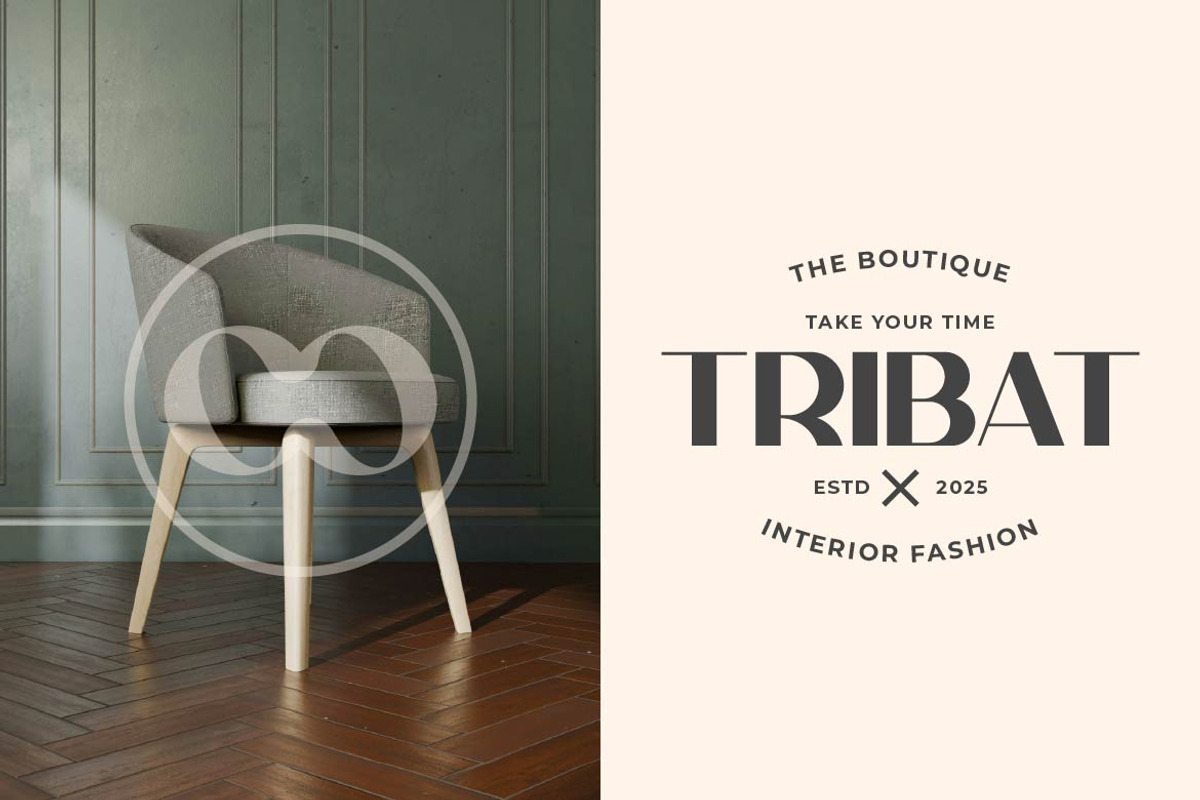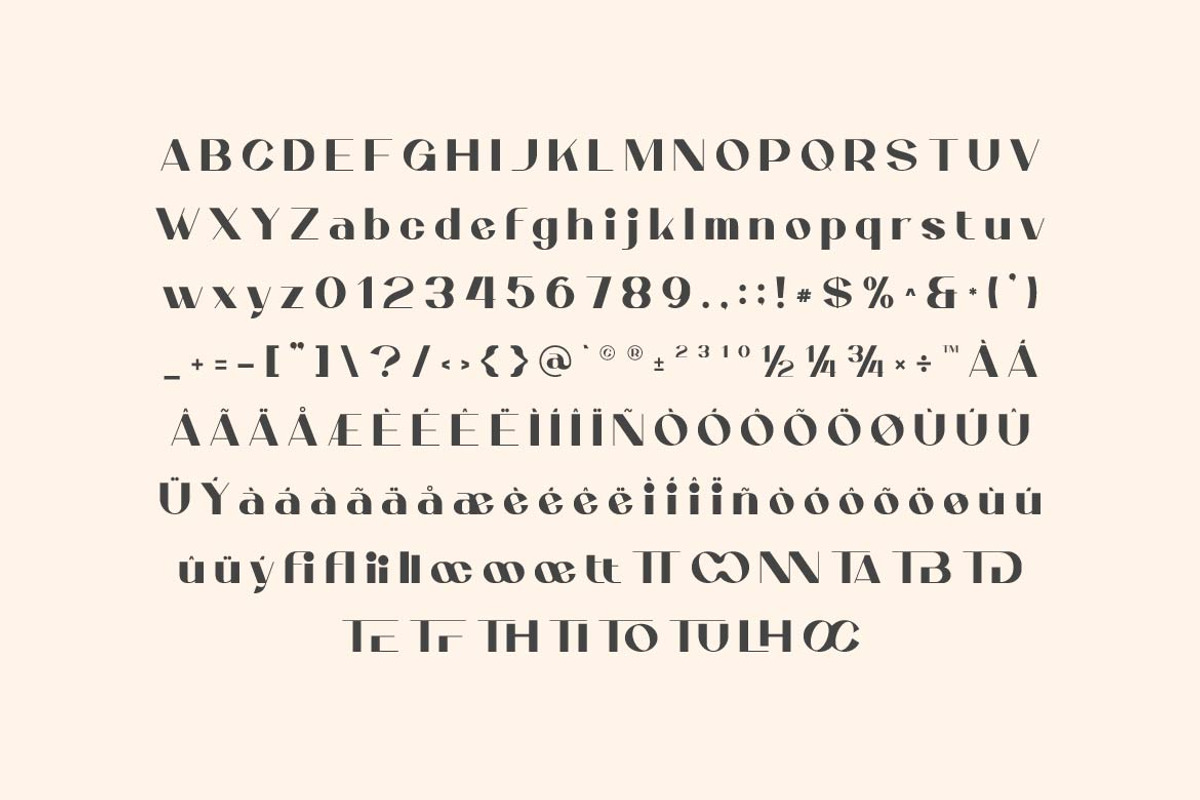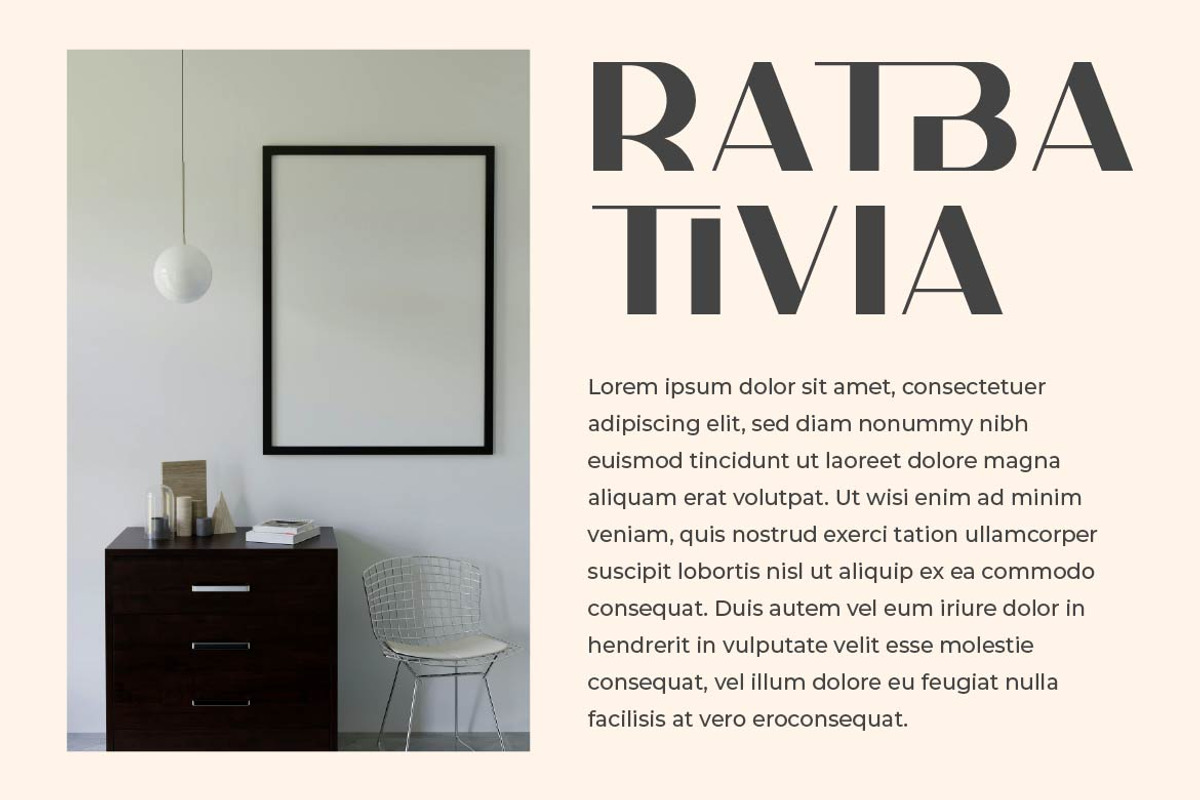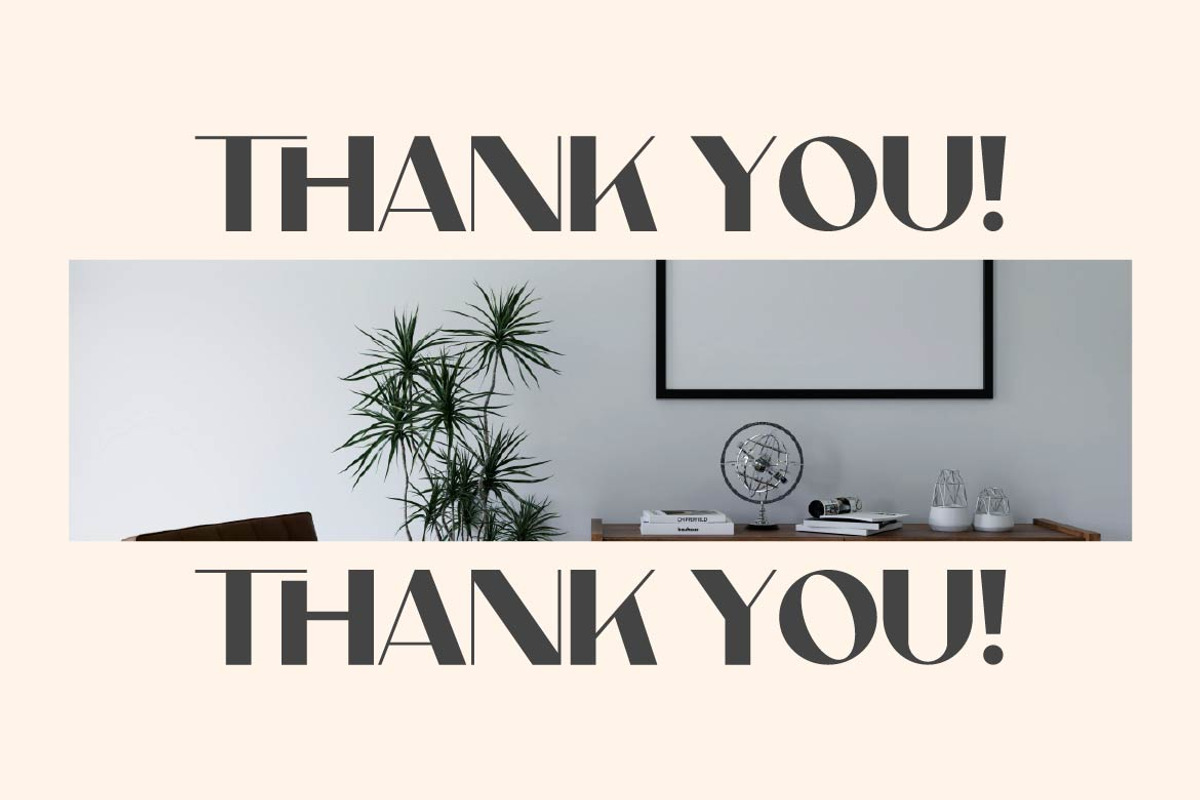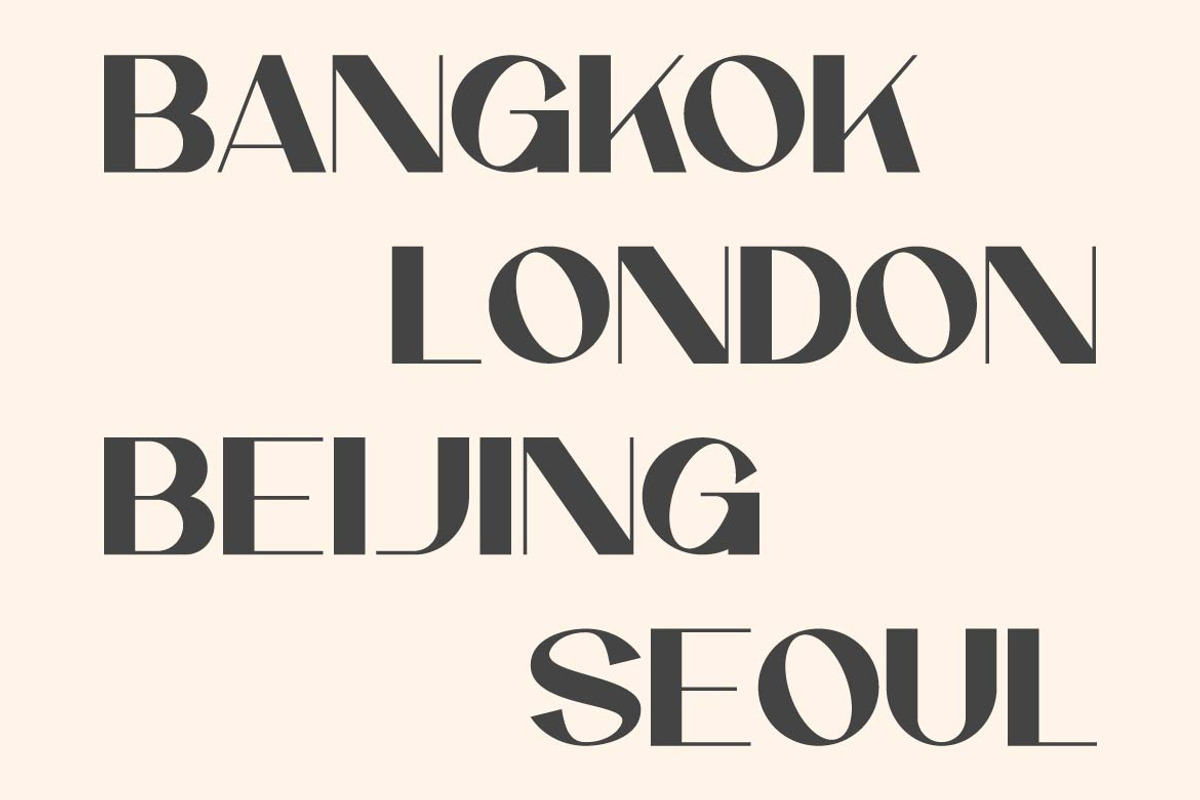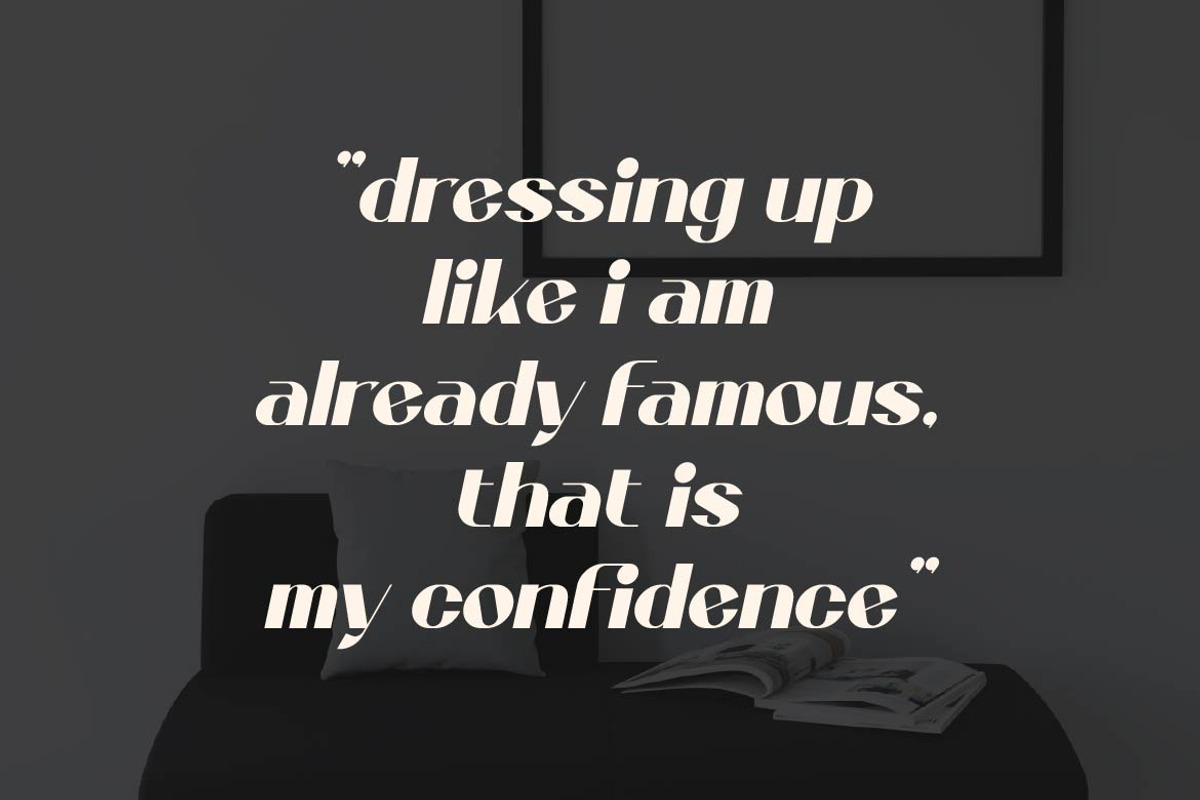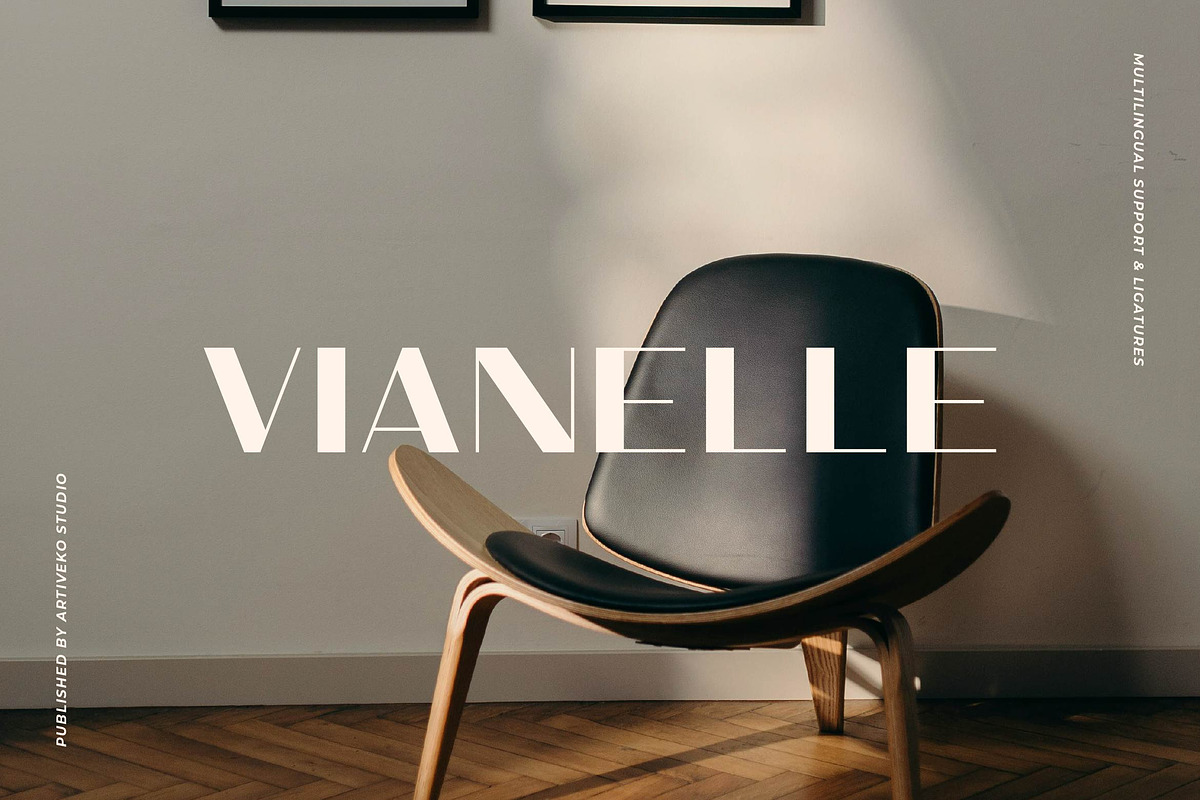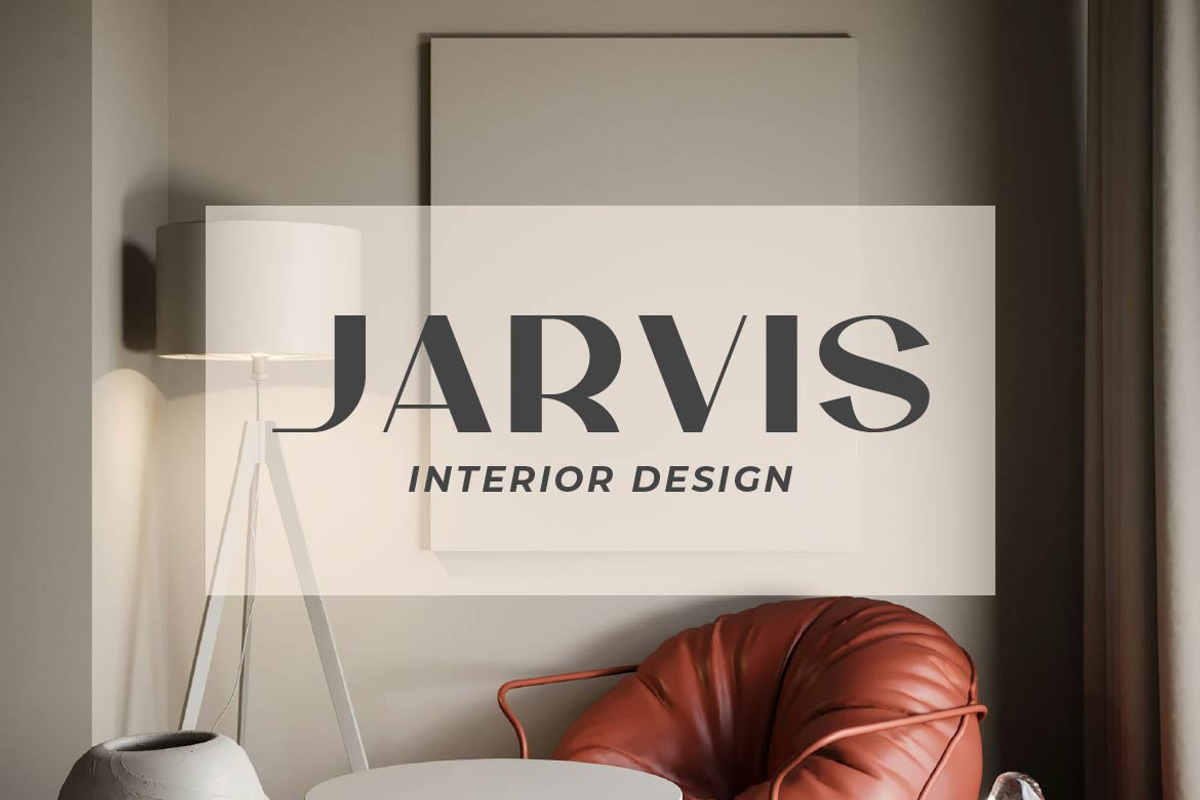
Vianelle Minimalist Sans
Vianelle is a clean and refined sans serif font designed for timeless simplicity and versatility. Featuring balanced proportions, smooth curves, and crisp edges, Vianelle is perfect for branding, editorial layouts, websites, packaging, and social media graphics that demand a modern yet understated aesthetic.